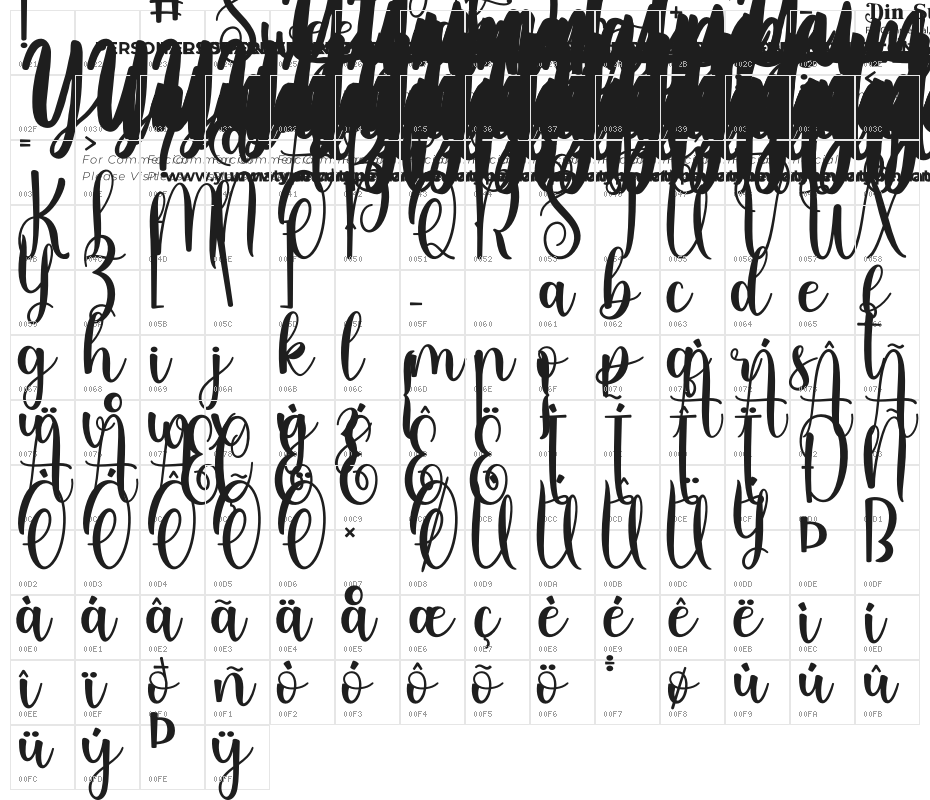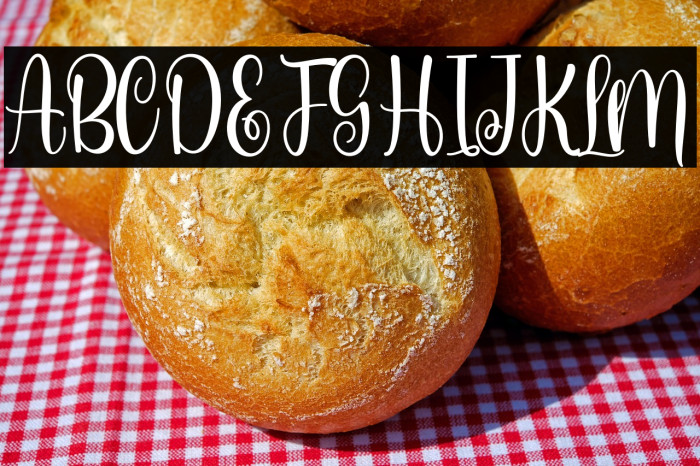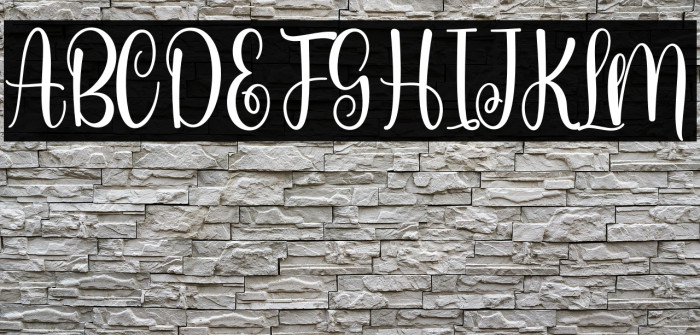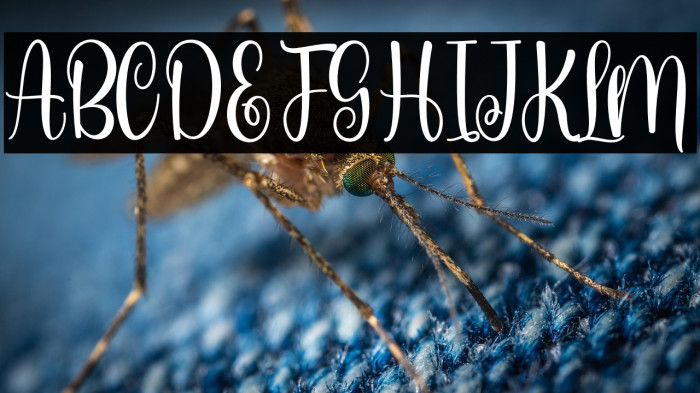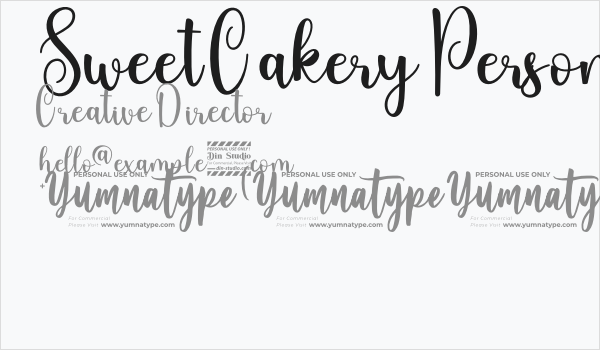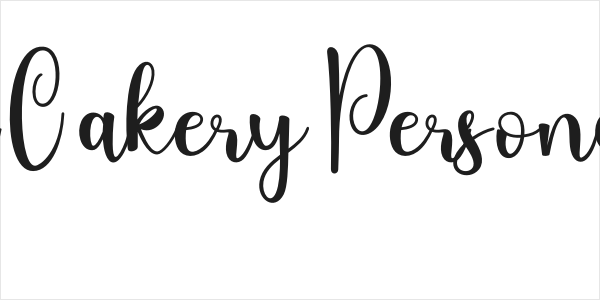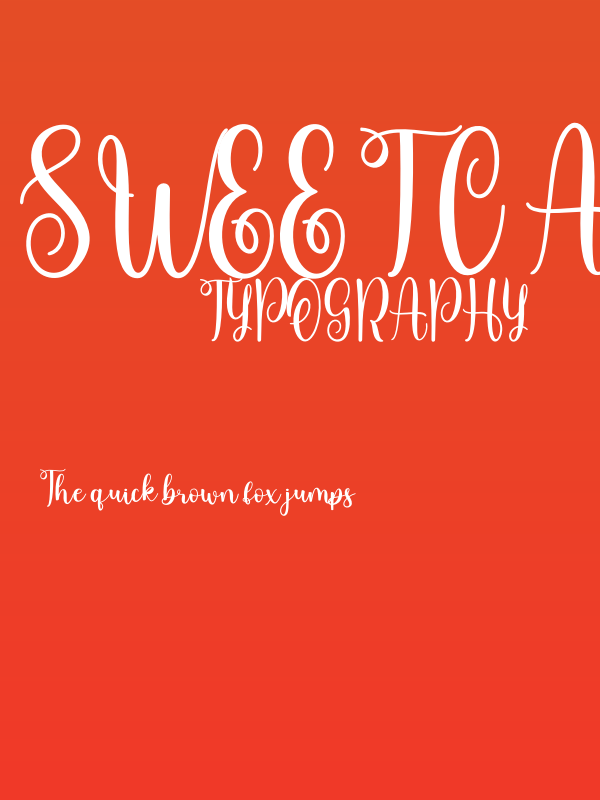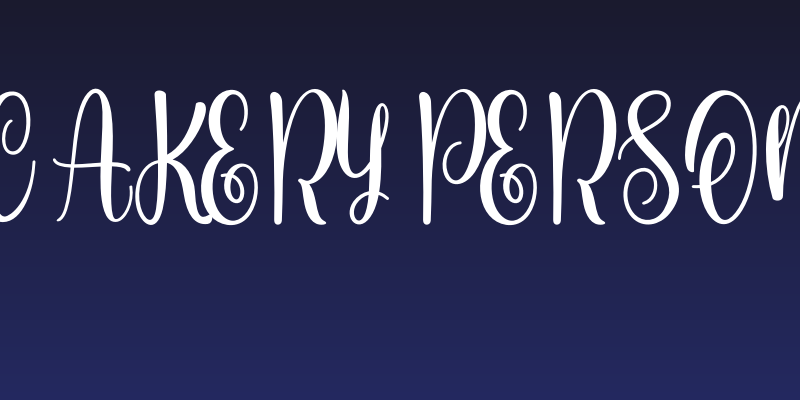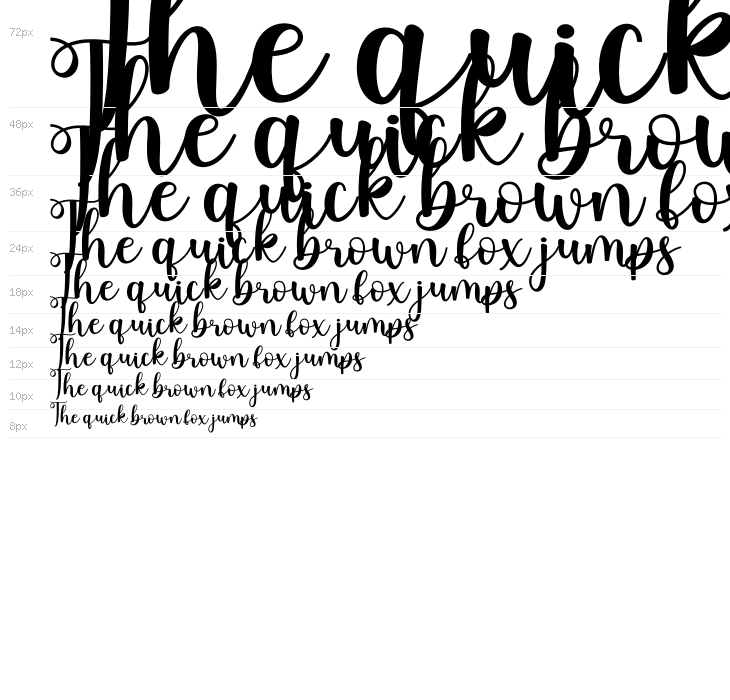
Sweet Cakery Personal Use Font
Sweet Cakery Personal Use Description
This font features a playful and whimsical script style with a hand-drawn appearance. The uppercase letters are characterized by their tall, looping ascenders and descenders, giving a sense of elegance and fluidity. The lowercase letters maintain a consistent flow, with some characters featuring unique swirls and curls that add to the font's charm. The numbers and special characters are designed to match the overall playful aesthetic, making this font suitable for creative and informal applications.